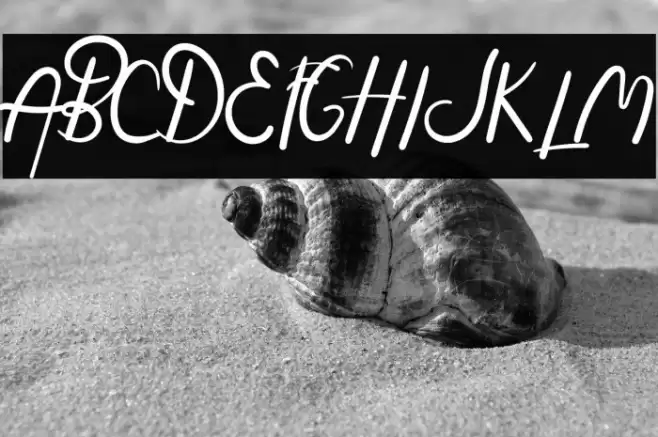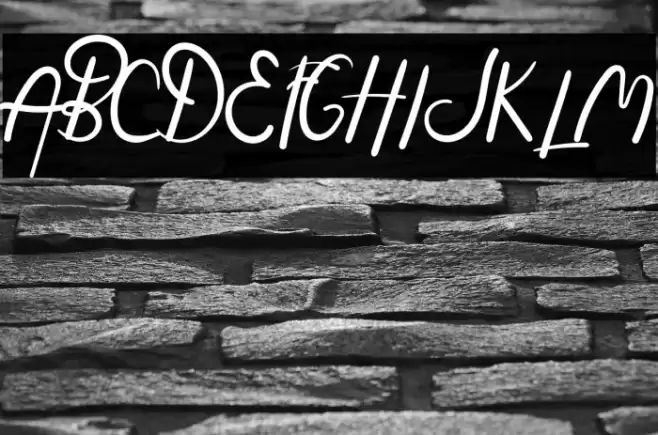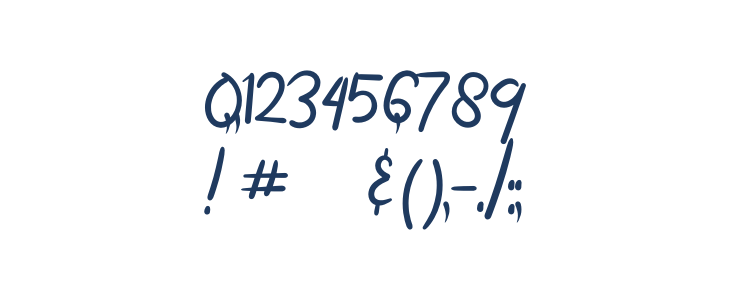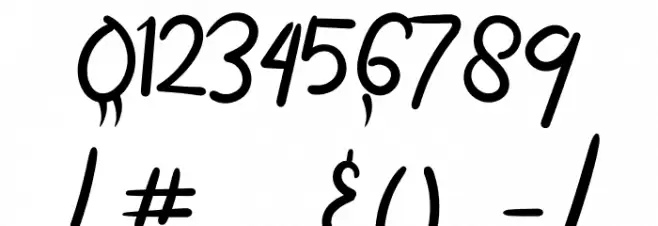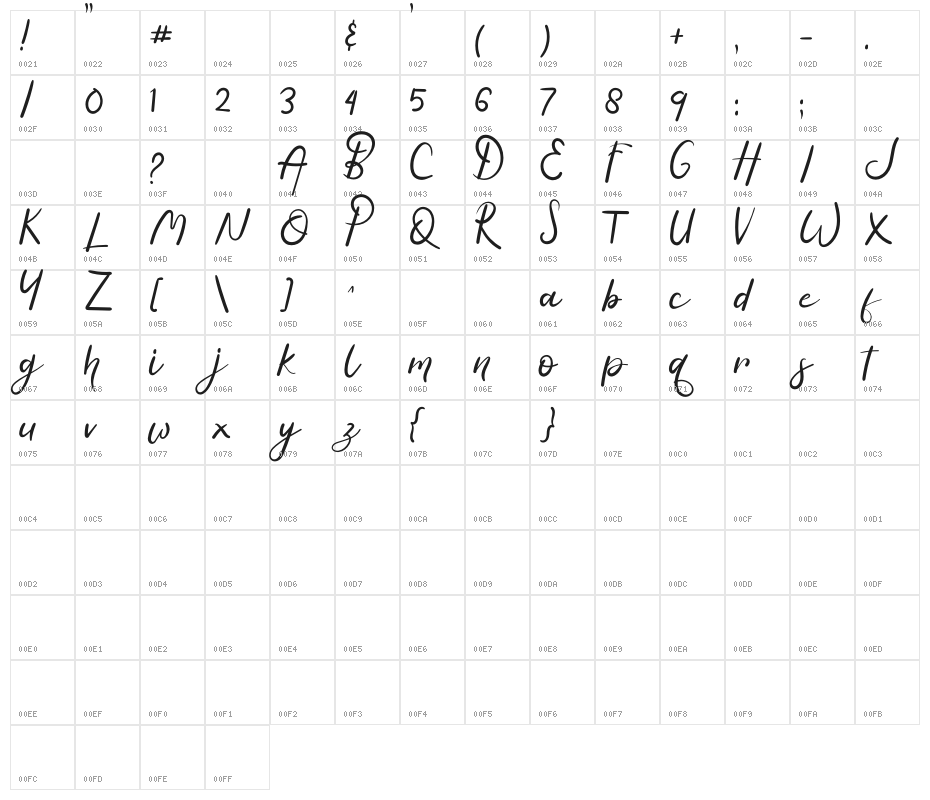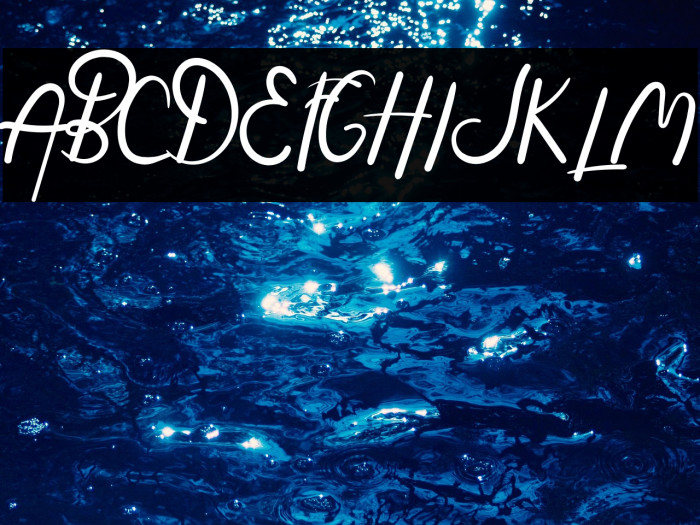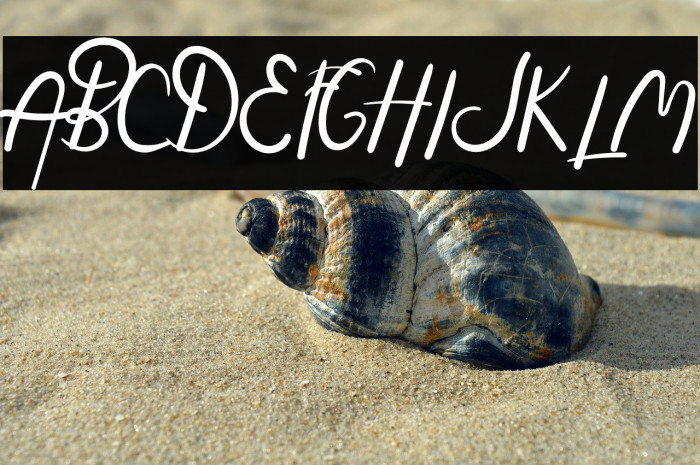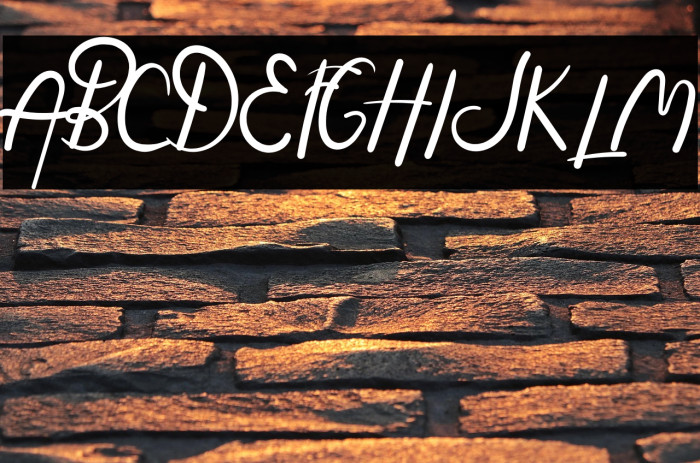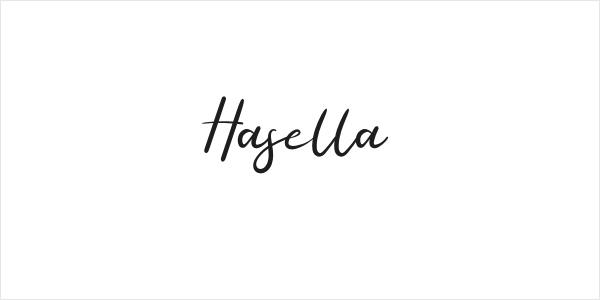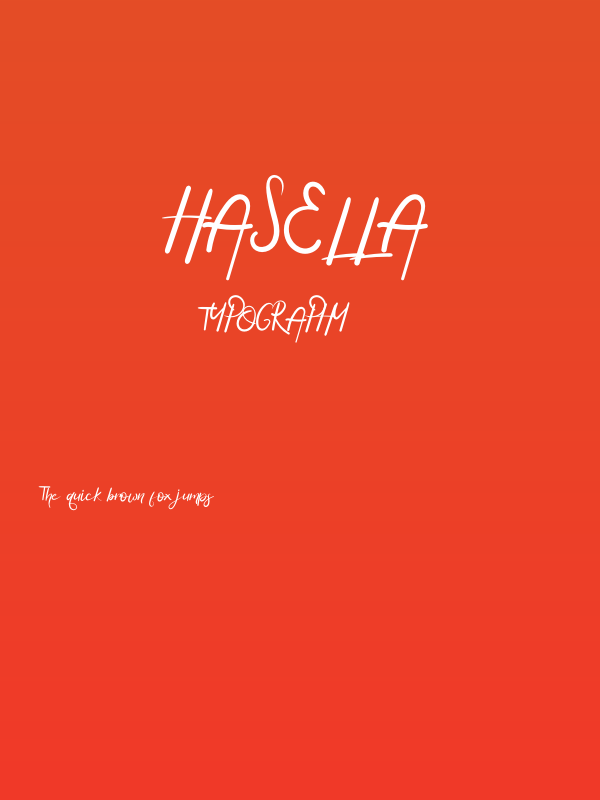
Hasella Font
Hasella Description
This font features a dynamic and fluid script style, characterized by its elegant and flowing letterforms. The uppercase letters are tall and slightly slanted, with smooth curves and a sense of movement. The lowercase letters maintain a cohesive style, with some letters featuring loops and swashes that add to the overall graceful appearance. The numerals are consistent with the script style, offering a harmonious look. Special characters are designed to match the fluidity of the alphabet, making this font versatile for various uses. The overall impression is one of sophistication and creativity, suitable for projects that require a personal touch.
A fluid and elegant script font with dynamic letterforms from Uncategorized fonts.
- Proposed Projects: Ideal for wedding invitations, greeting cards, branding, and logo design.
- Use Case: Logos, Invitations, Branding